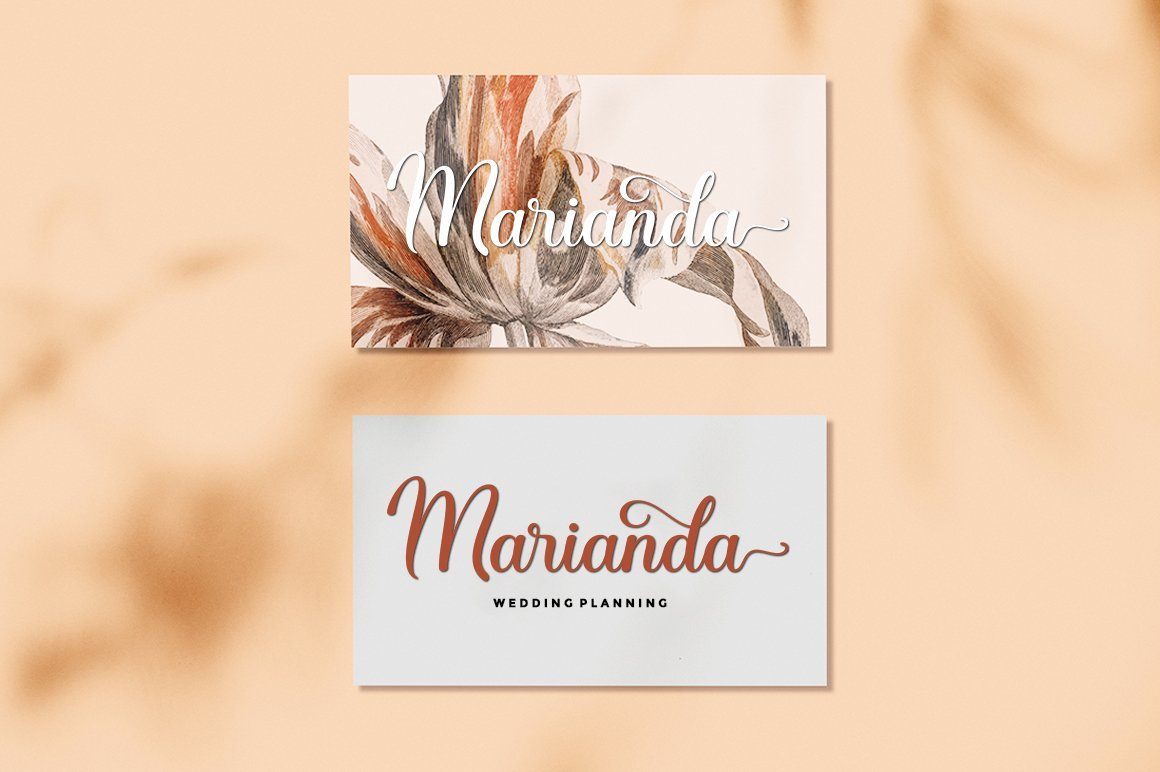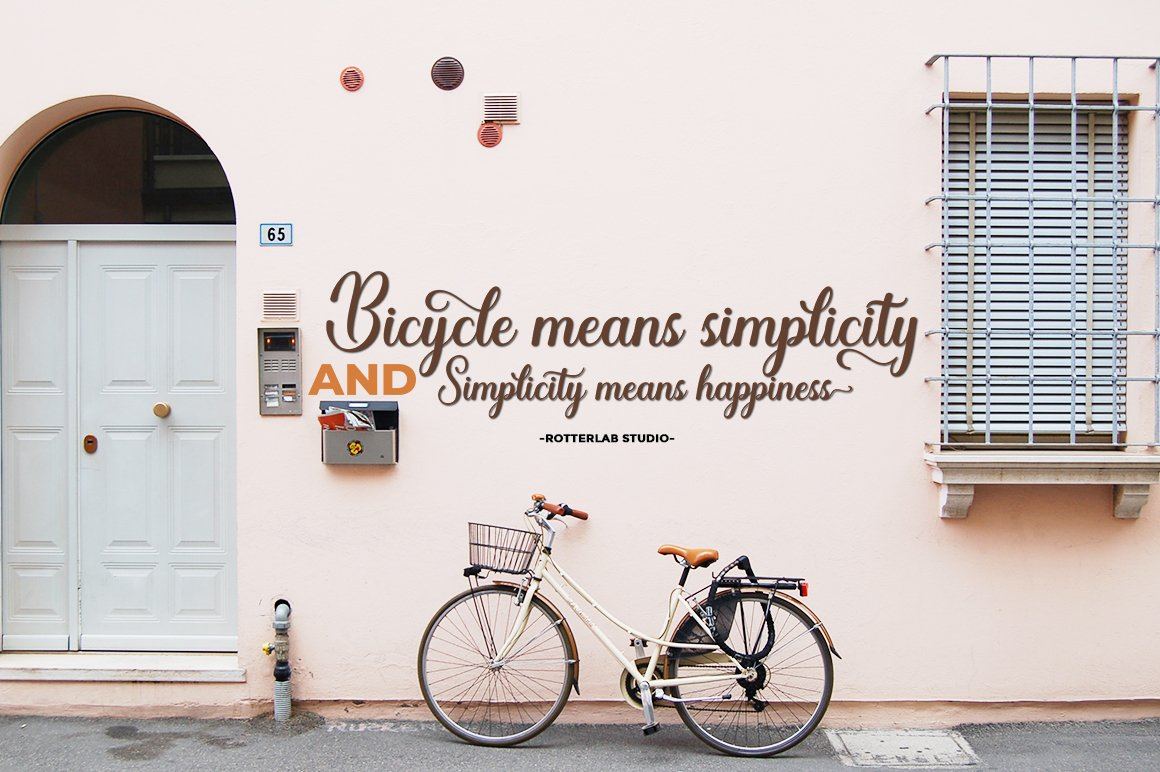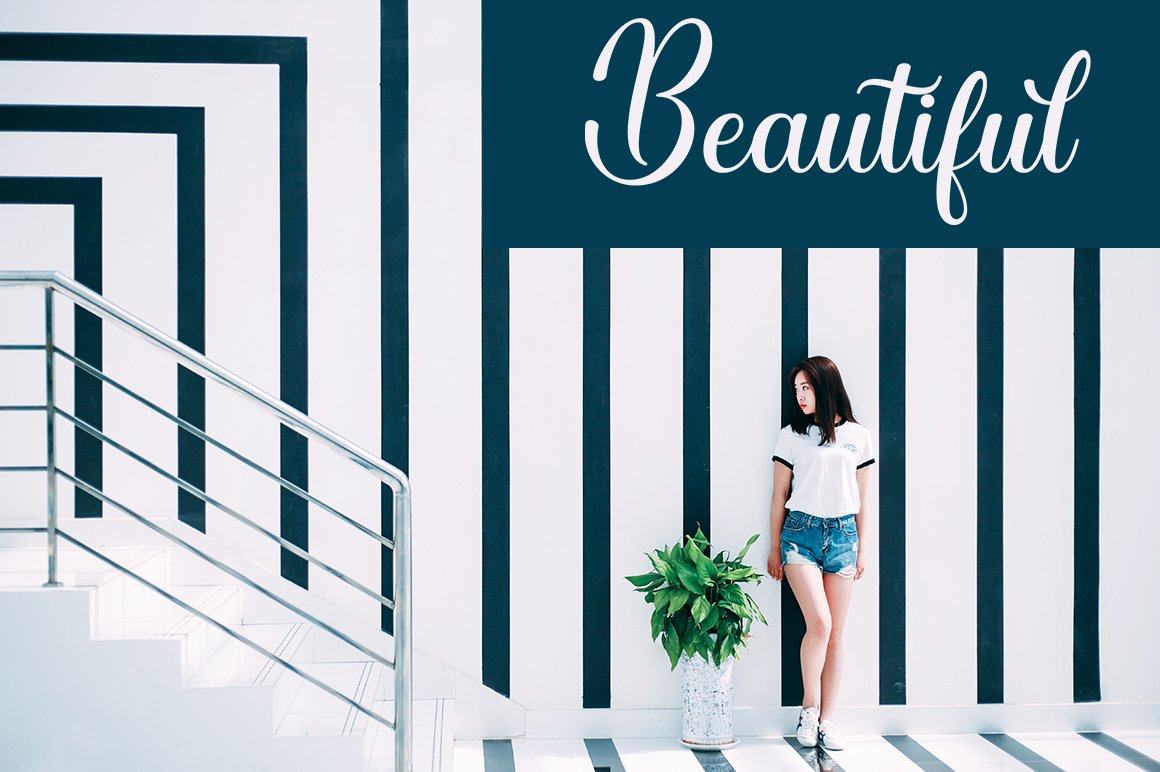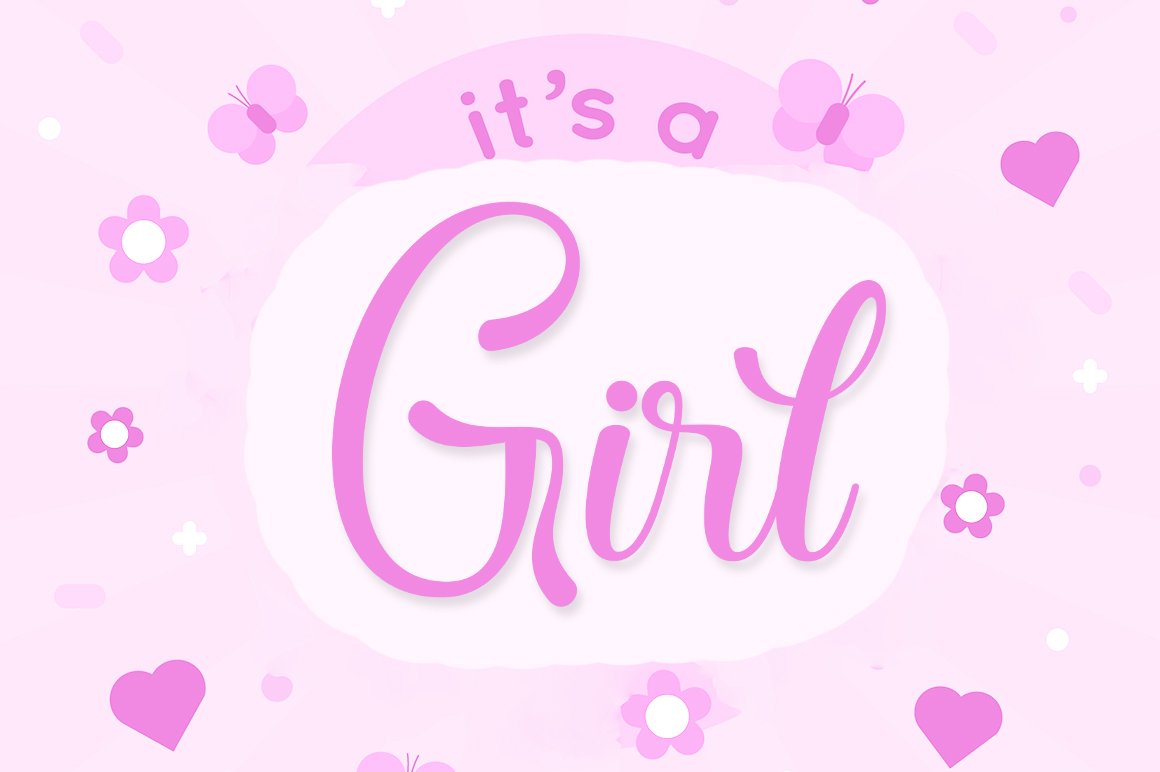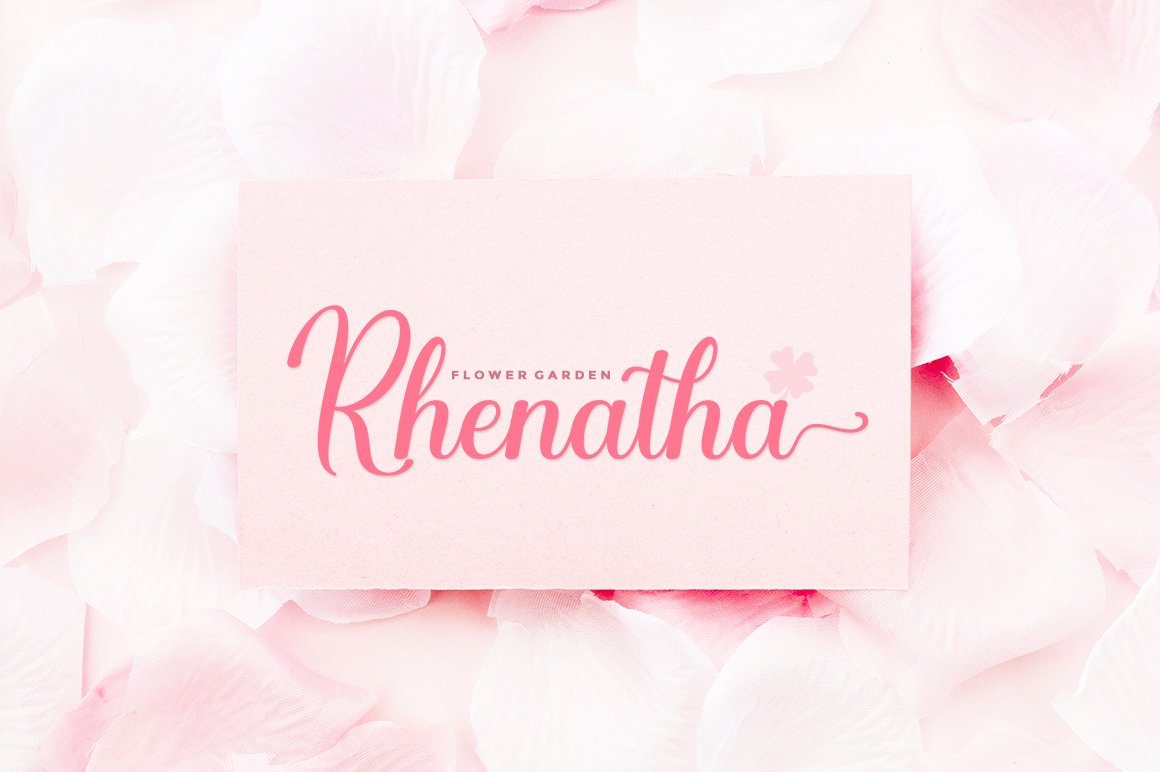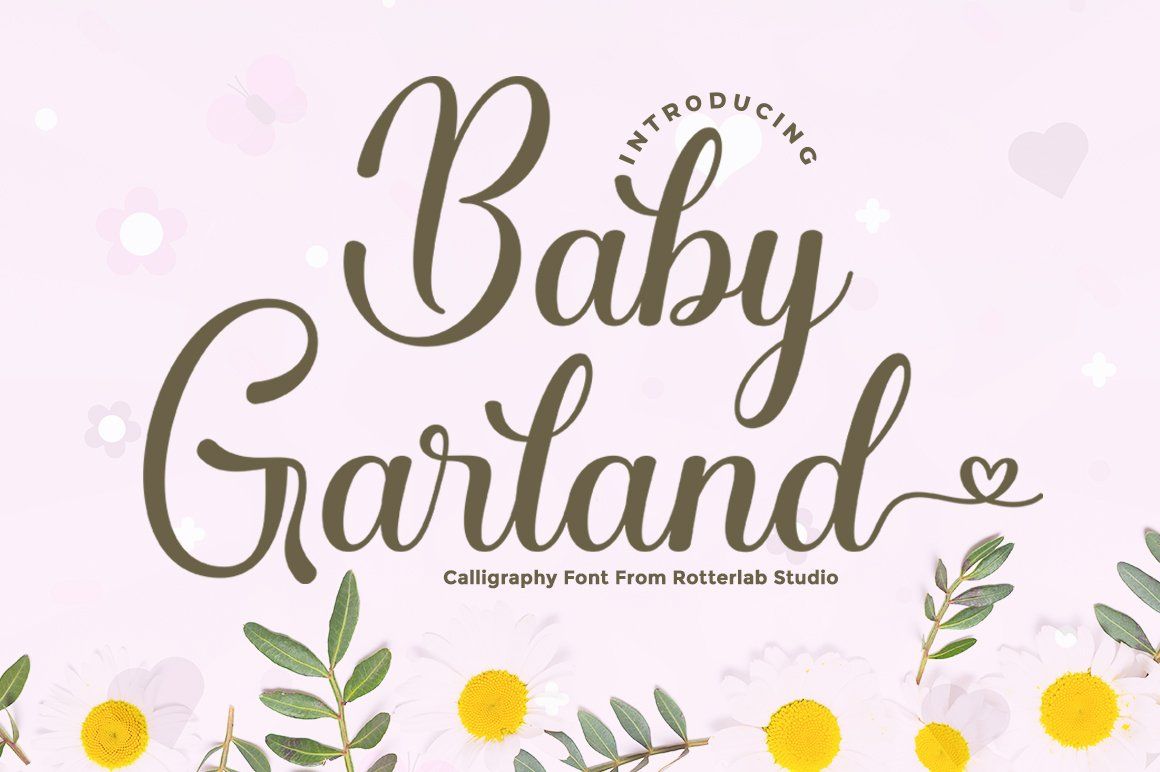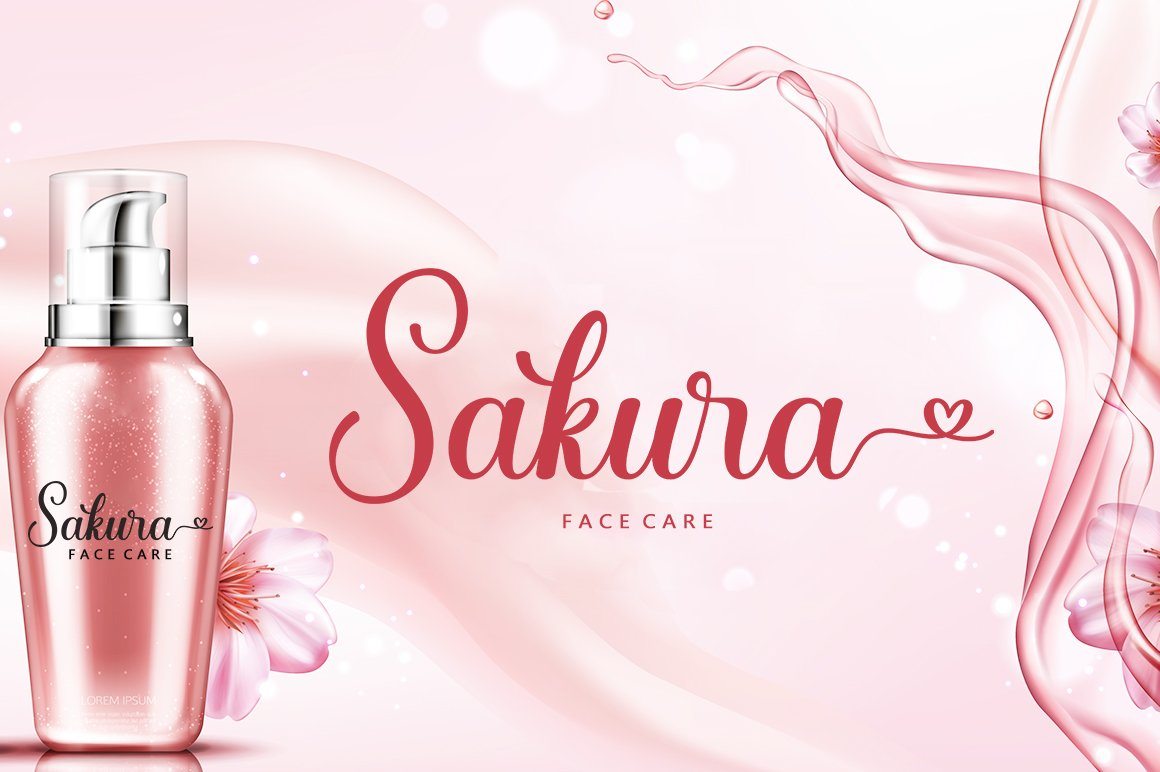
Baby Garland
About Baby Garland
Baby Garland is a beautiful script font with a modern and elegant feel. It has a classy look that can be used for logos, branding, invitations, stationary, cards, wedding designs, social media posts, and any other design that requires a handwriting touch. This font is PUA encoded which means you can access all glyphs and swash easily! It features varied base lines, fine lines, beautiful flying machines and incredible alternatives. Thank you